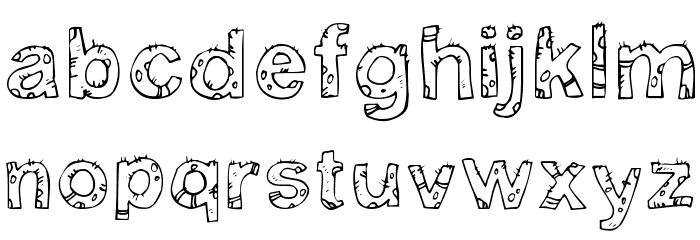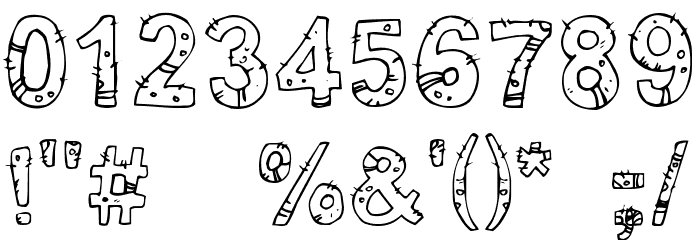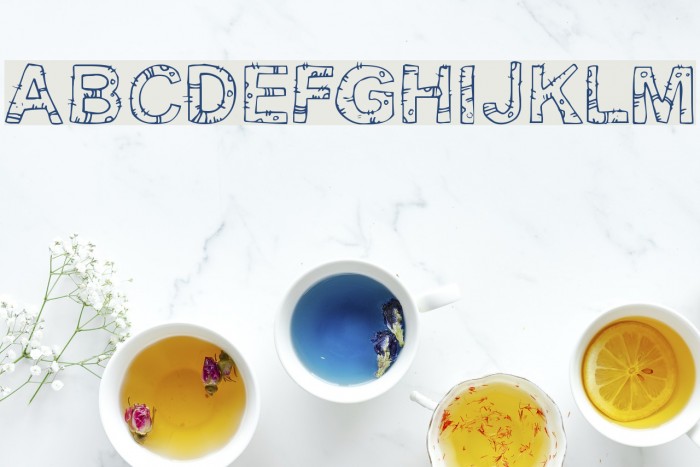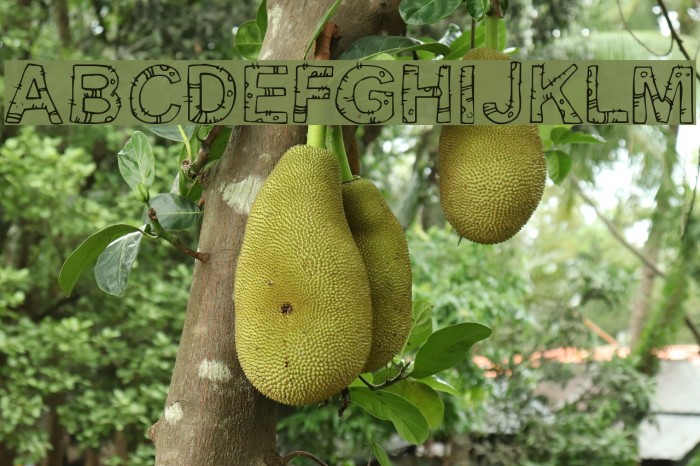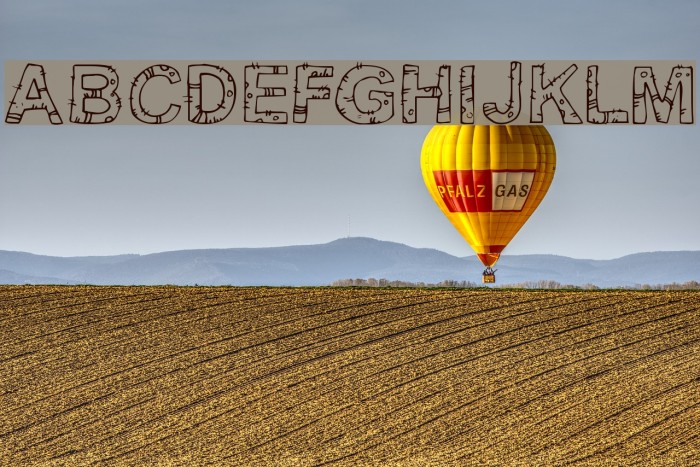
Yugly Font
This playful and quirky font features a unique hand-drawn style with irregular outlines and whimsical details. Each character is adorned with small, doodle-like elements that give it a fun and creative appearance. The font maintains a consistent thickness throughout, with rounded edges and a slightly uneven baseline, adding to its casual and informal vibe. It's perfect for projects that require a touch of humor and creativity, such as children's books, comic strips, or playful branding. The font's distinct personality makes it stand out, ensuring that any text set in this style will capture attention and convey a sense of fun.
A playful, hand-drawn font with quirky, doodle-like details.
- Proposed Projects: Ideal for children's books, comic strips, playful branding, and creative projects.
- Overall Style: Playful, Quirky, Creative
- Use Case: Headlines, Logos, Creative projects